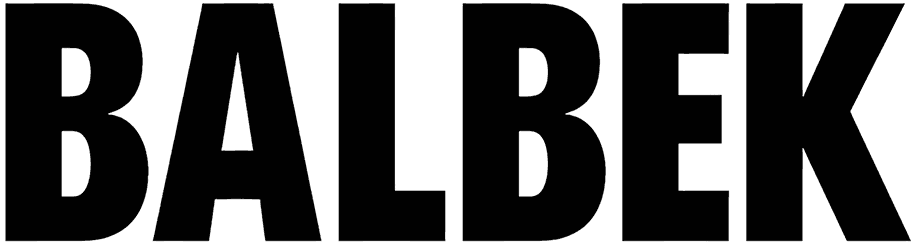
Balbek Font
The strong, sans serif font Balbek is dependable and eye-catching, and it works well for a wide range of projects, including headlines, book and movie titles, gaming interfaces, and many other types of projects.
Balbek font
Introducing “Balbek” – A modern “condensed” sans serif ligature typeface.Designed by graphic designer Martin Katibi. The balbek font is an eye catching heavy and condensed sans serif type face. The inspiration for this font were other condensed sans serif such as Gabo Drive and Impact.
The Balbek font is great for use on headlines, advertisements, product packaging, newspapers and posters. Balbek fully supports multilingual characters, it also come with a full set of alternative uppercase letters, ligature and small cap. All these features will make your next project standout.
The font comes in eight styles, which are Regular, Cut, Outline and Soft. Each of these font styles comes with an oblique version.